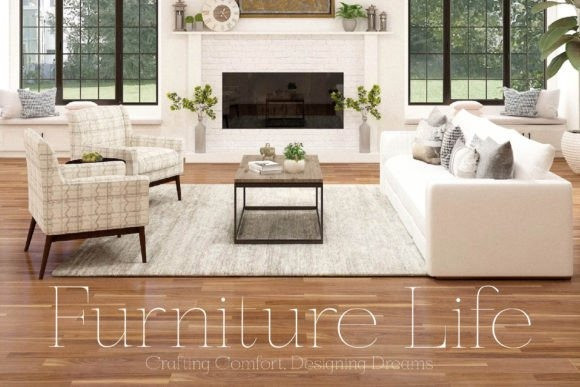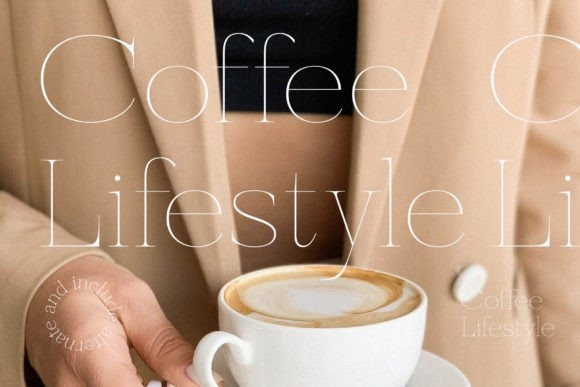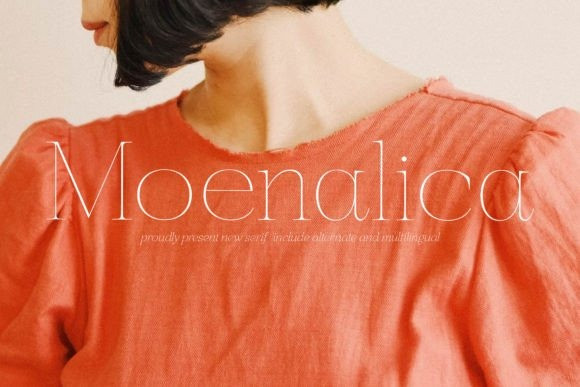
Moenalica Font
Moenalica Font is a modern and classic serif typeface that has its own unique style and modern look. This typeface is perfect for an elegant & luxurious logo, book or movie title design, fashion brand, magazine, clothes, lettering, quotes, and so much more.